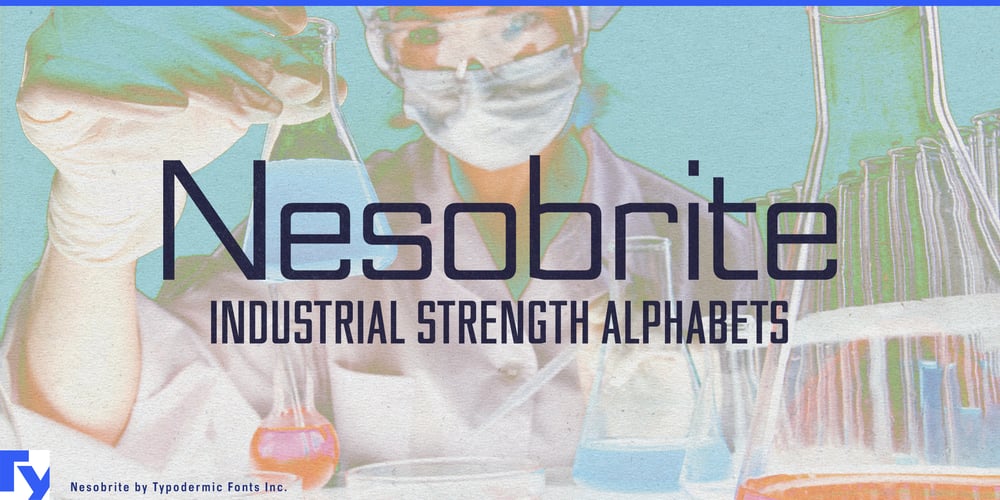
Nesobrite
Nesobrite font
Nesobrite Font Family was designed by Ray Larabie and published by Typodermic. Nesobrite contains 50 styles and family package options. In the high-stakes world of research communication, I’ve discovered a typographic catalyst that will transform your headings and titles into eye-catching marvels. Enter Nesobrite: the display typeface that’s as robust as your most groundbreaking hypotheses.Nesobrite isn’t for your mundane methods sections or literature reviews. No, this font is the heavy hitter of headers, the titan of titles, the superstar of short text runs. Its linear, mechanical structure is engineered to grab attention faster than a superconductor at absolute zero. Picture your next conference poster. That crucial title that encapsulates years of work? Set it in Nesobrite and watch colleagues’ eyes lock onto it from across the hall. This typeface doesn’t whisper—it proclaims your research with the authority of a Nobel laureate giving a keynote address.With five different widths and weights, plus italics, Nesobrite offers more variety than a gene sequencing lab. Need a punchy subtitle for your TED talk? The bold condensed version will do the trick. Want to make your chapter titles pop in that textbook you’re writing? Nesobrite’s got you covered. But remember, like a precision instrument, Nesobrite is designed for specific applications. It’s not meant for long paragraphs or body text—that would be like using an electron microscope to check your hair. No, Nesobrite shines brightest in short bursts, much like the flashes of insight that drive scientific discovery. From journal covers to presentation slides, from book jackets to infographic headlines, Nesobrite ensures your most important messages stand out in the crowded landscape of academic publishing. It’s the typographic equivalent of that crucial graph that makes your entire argument click into place.So, esteemed colleagues, as we push the boundaries of human knowledge, let’s ensure our most critical ideas are presented with equal innovation. Use it wisely, use it boldly, and watch as your titles and headings capture imaginations and ignite curiosity. Choose Nesobrite for your display text, and let your research headlines speak with the impact they deserve. After all, in the fast-paced world of scientific communication, you’ve got mere seconds to make your mark. Make them count with Nesobrite.